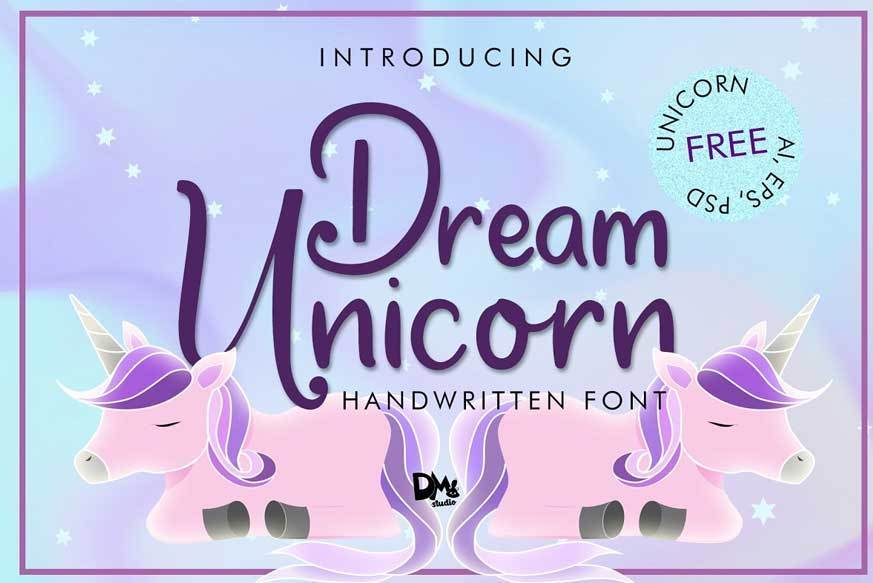
Dream Unicorn Handwritten Font
Dream Unicorn is a lovely, cute and sweet handwritten font. Combine this amazing typeface with the extra Unicorn designs to create one-of-a-kind crafts projects.